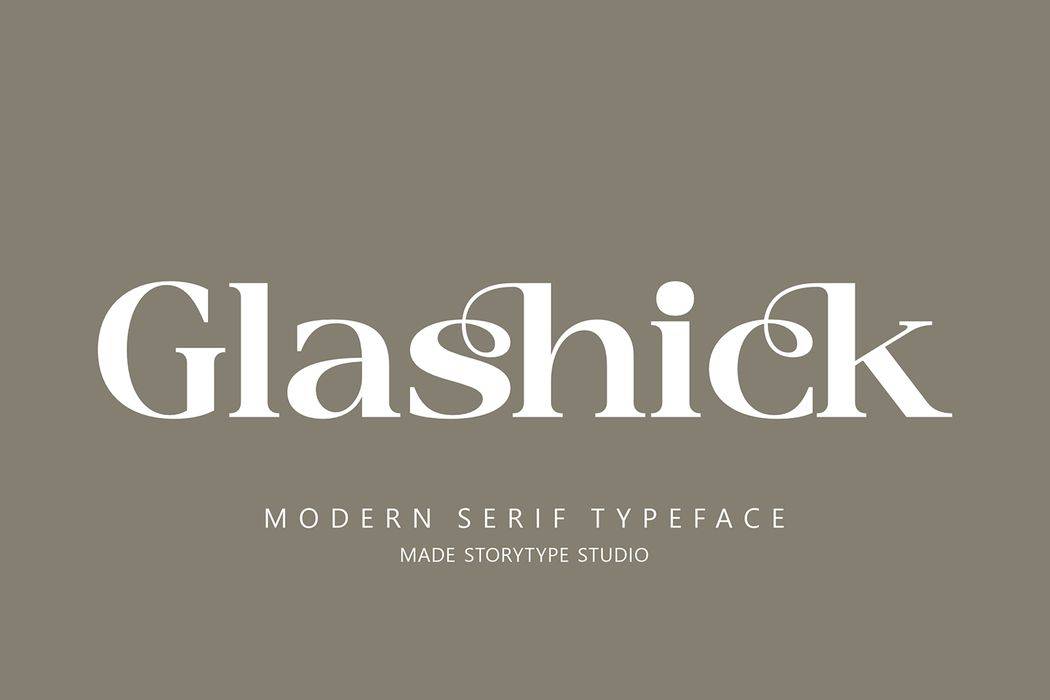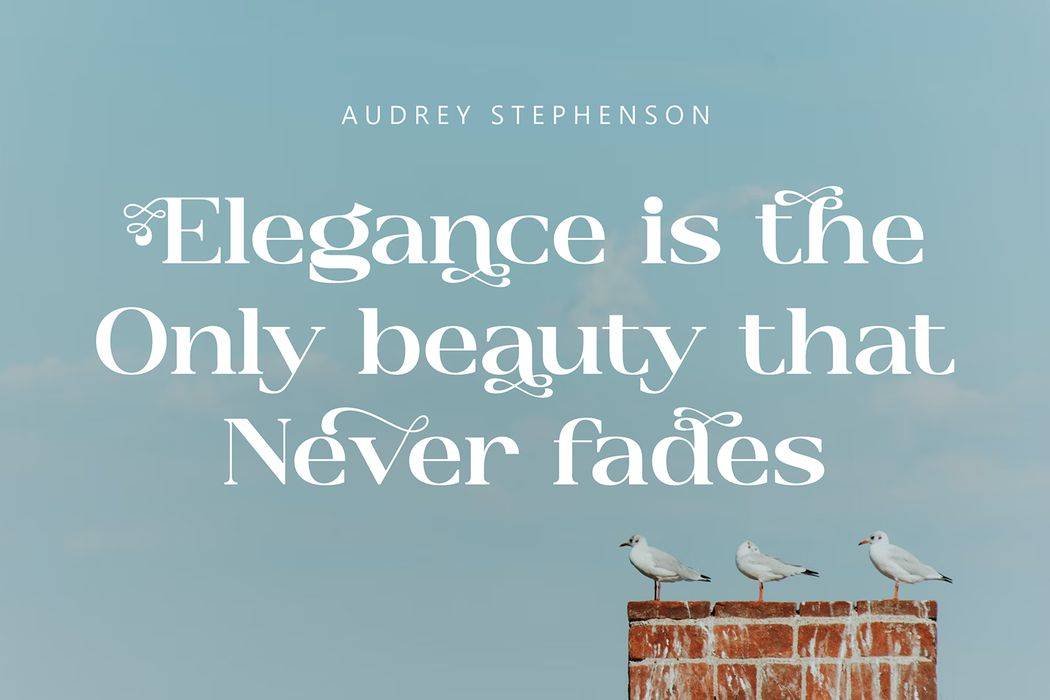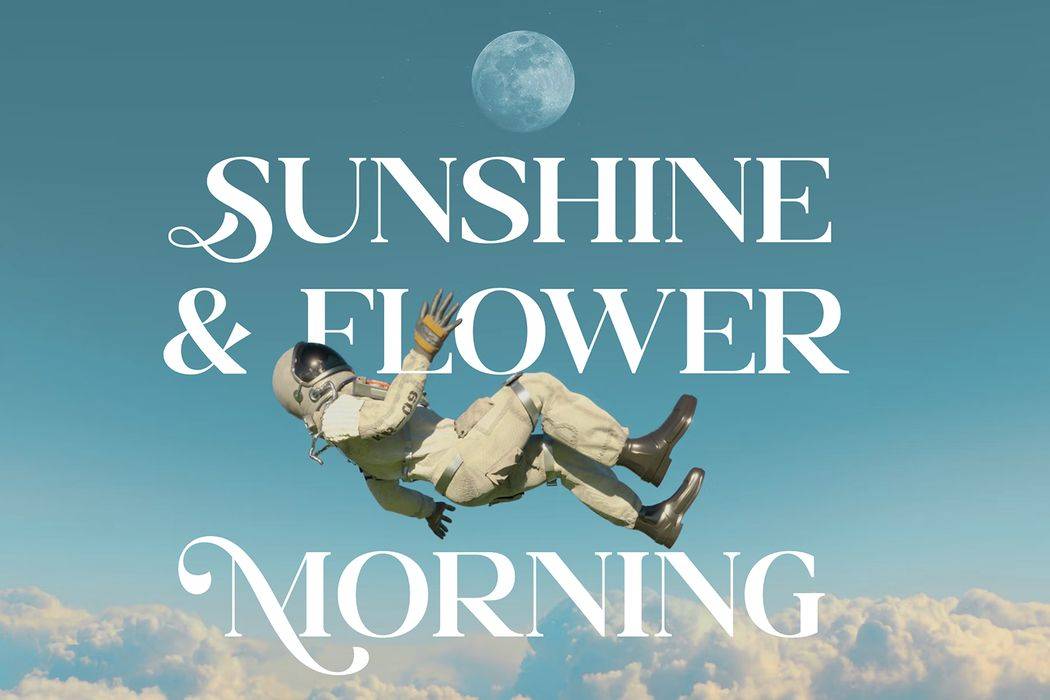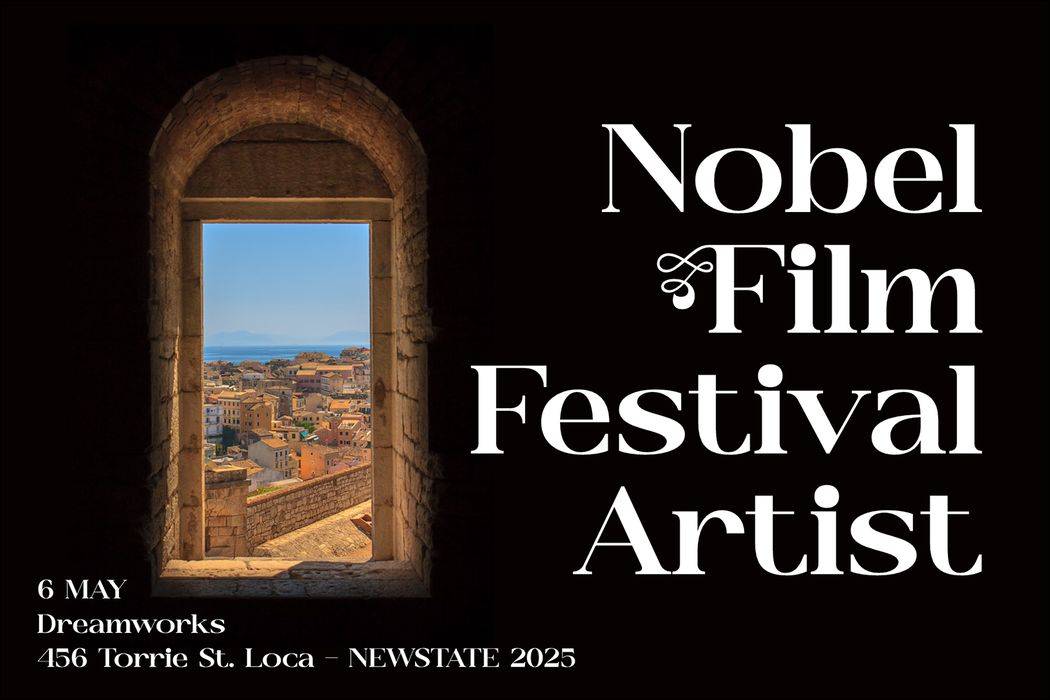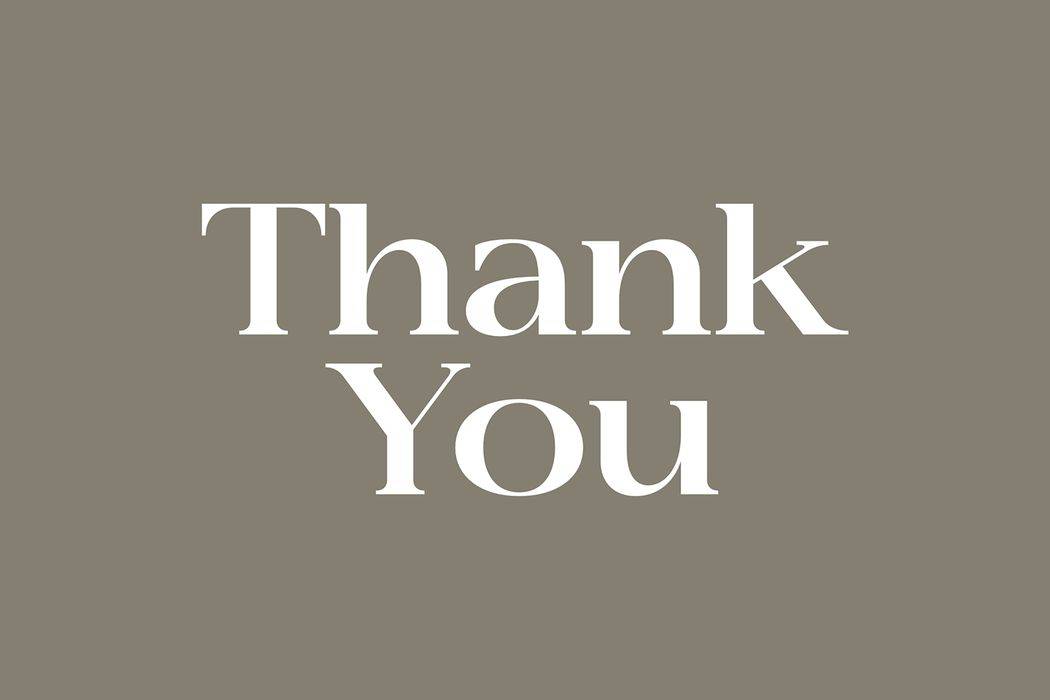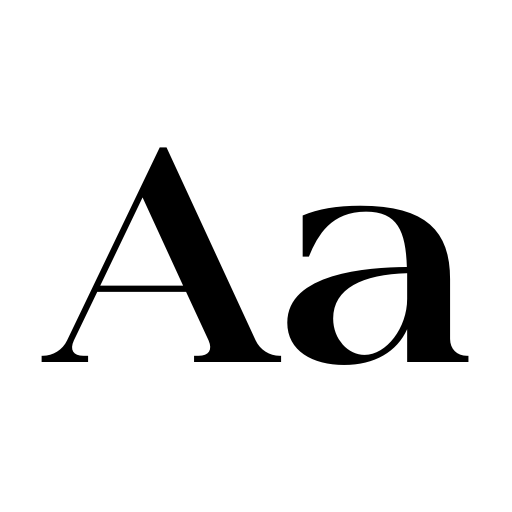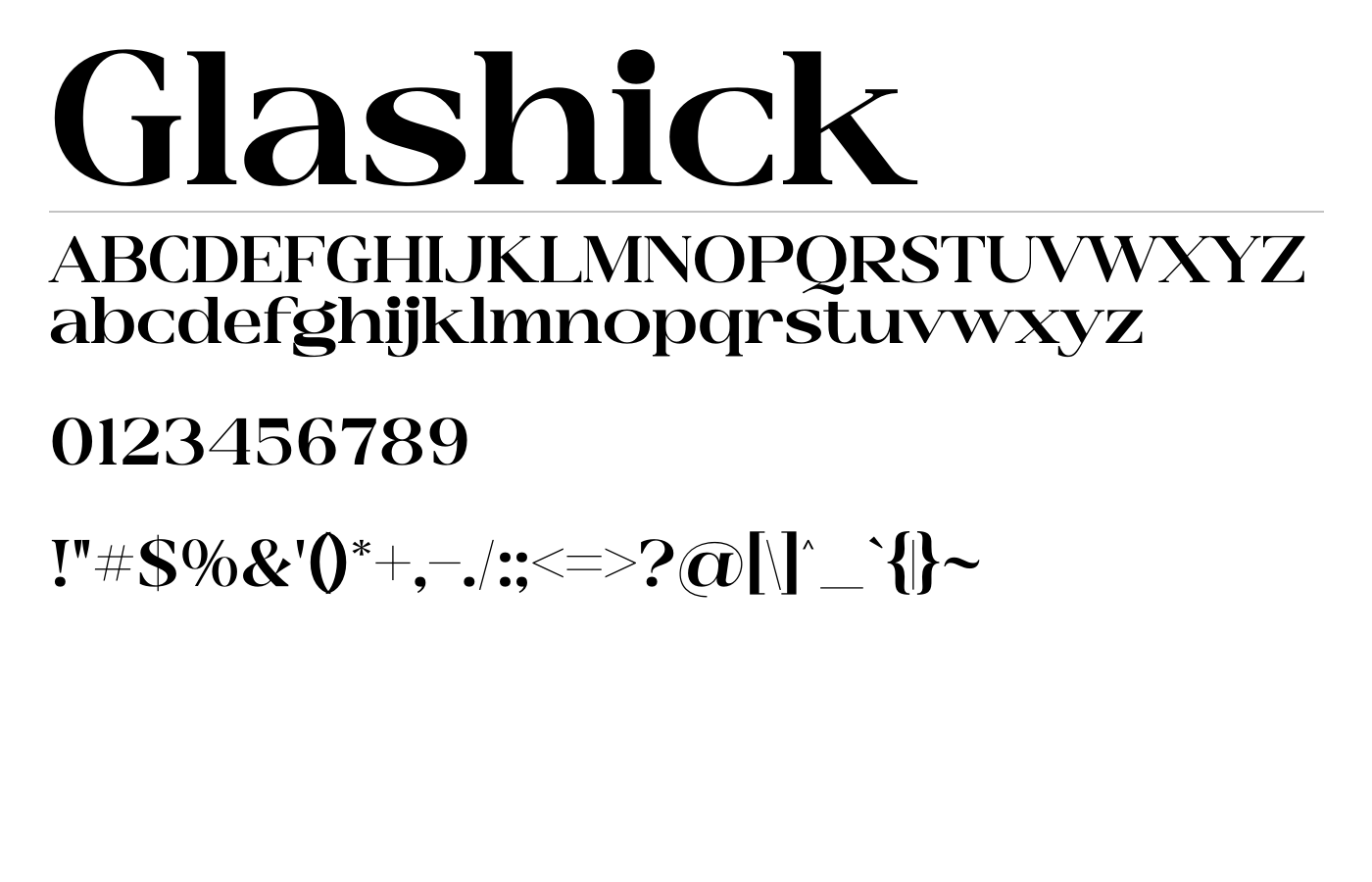
Glashick is a refined serif font with a classic, elegant feel, characterized by its high contrast between thick and thin strokes and sharp, bracketed serifs. It features a traditional double-story design for characters like "a" and "g," with well-balanced proportions and clear, readable shapes that lend sophistication without compromising legibility. Ideal for luxury branding, editorial headlines, and stylish packaging, Glashick adds a timeless and polished touch to any design needing a blend of tradition and modern clarity.
Glashick Font
About Glashick Font